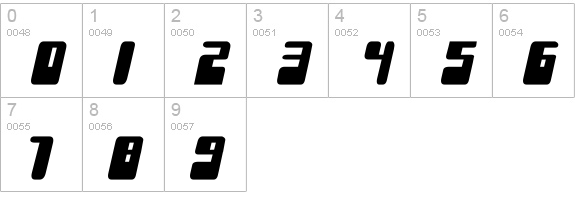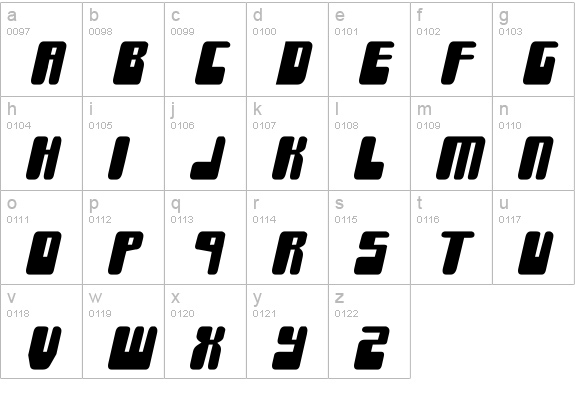
Force Majeure Font Details
Introducing Force Majeure font, a striking display typeface that exudes power and strength. With its bold, angular letterforms and unique design elements, Force Majeure commands attention and makes a powerful statement in any project. This versatile font is perfect for branding, logos, headlines, posters, and more. What sets Force Majeure font apart is its modern aesthetic combined with a touch of edginess, making it ideal for projects that require a bold and impactful look. Whether you're working on a futuristic sci-fi design or a sleek corporate identity, Force Majeure will elevate your work to the next level. Best of all, Force Majeure font is available for free download at FontsMarket.com. So why wait? Add this dynamic typeface to your font collection today and unleash its forceful energy in your designs.